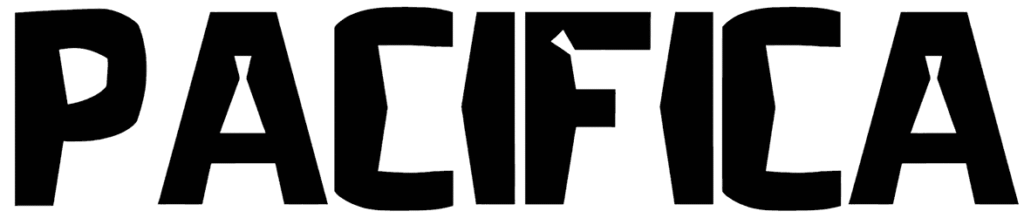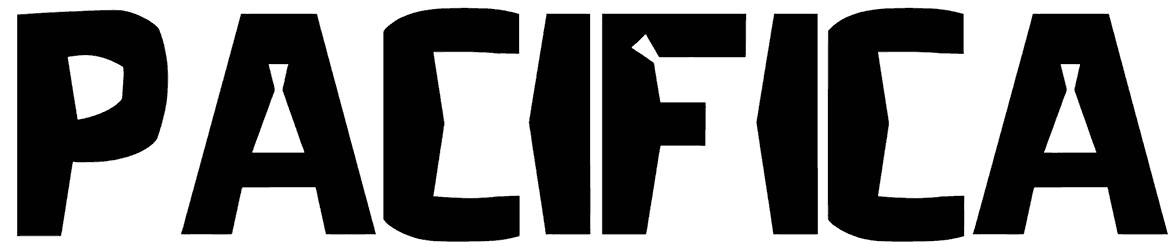
Pacifica Font
If you are looking for an influential poster font to engage the audience, Pacifica would be really ideal and gives a sense of dynamic, jauntiness, tenderness, or fierceness to your artwork. This all-caps masterpiece can be included in a wide set of graphic content, ranging from movie posters, product packaging, logos, brochures, or social media posts.